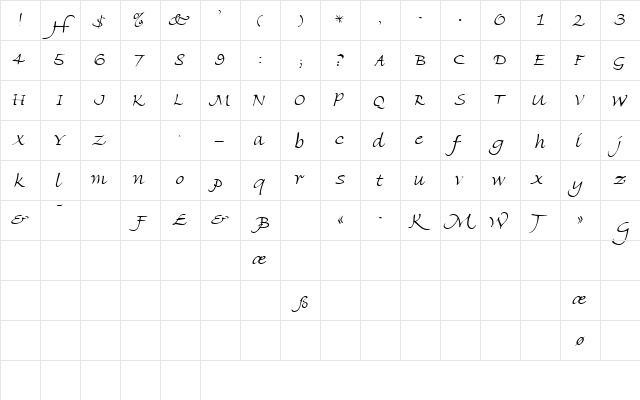
AmbienteScriptSSK Regular Font Preview
AmbienteScriptSSK Regular
AmbienteScriptSSK Regular Font Details
Design Context for AmbienteScriptSSK Typeface
AmbienteScriptSSK brings a calligraphic fluidity to the page — its connecting strokes and expressive curves give it an unmistakably human quality.
Font Pairing: Combine AmbienteScriptSSK with a simple geometric sans for maximum contrast — the tension between flowing curves and clean structure is a classic typographic pairing.
Pro Tip: Use AmbienteScriptSSK for short runs of text — names, titles, or taglines. Extended body copy in script faces tires the eye quickly.